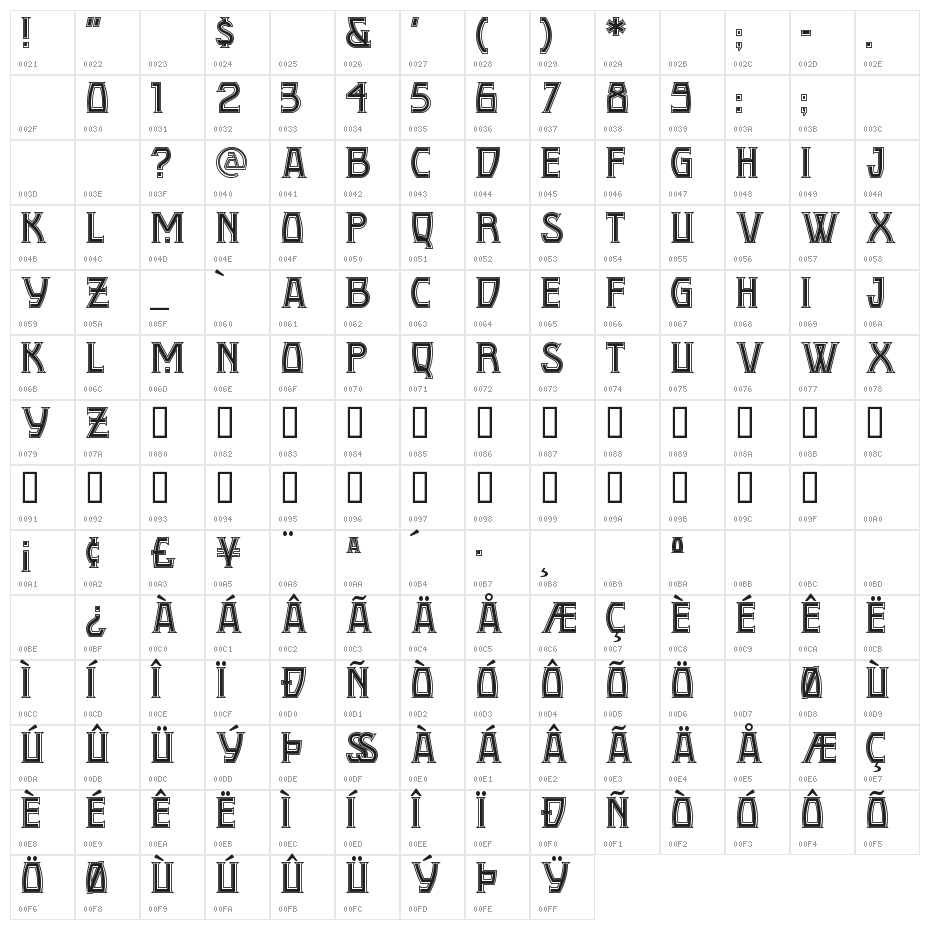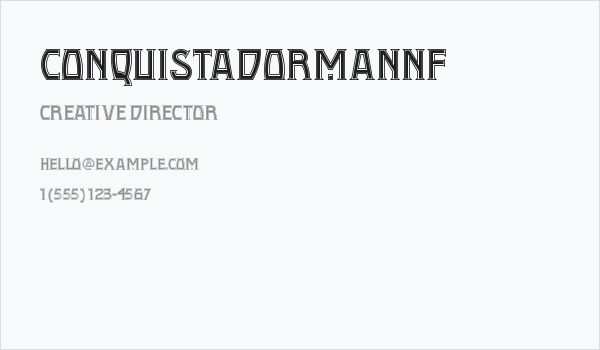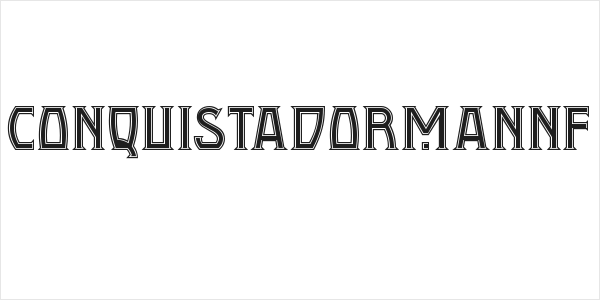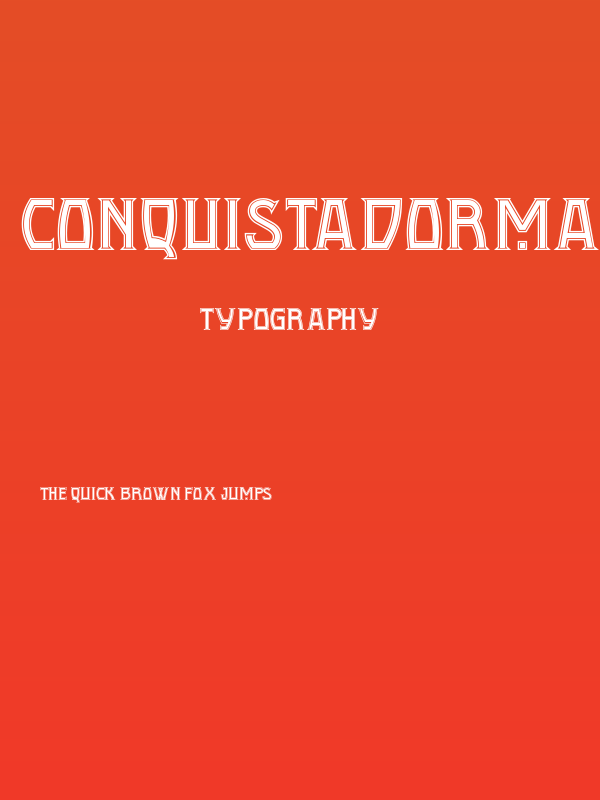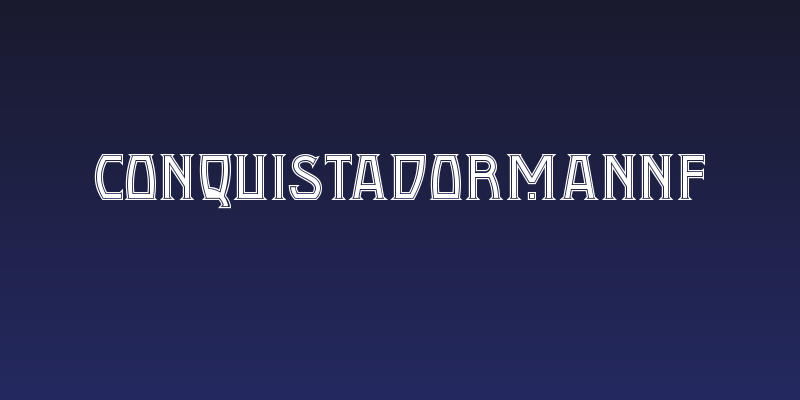
ConquistadormanNF Font
ConquistadormanNF Description
This font features a bold, decorative style with a strong presence. The characters are outlined, giving them a three-dimensional effect that adds depth and interest. The uppercase letters are angular and geometric, with sharp edges and a consistent stroke width. The numbers and special characters follow the same design principles, ensuring a cohesive look across all elements. The font's unique style makes it suitable for attention-grabbing designs, where a bold statement is needed.
| Proposed Projects | Ideal for posters, logos, and headlines where a strong visual impact is desired. |